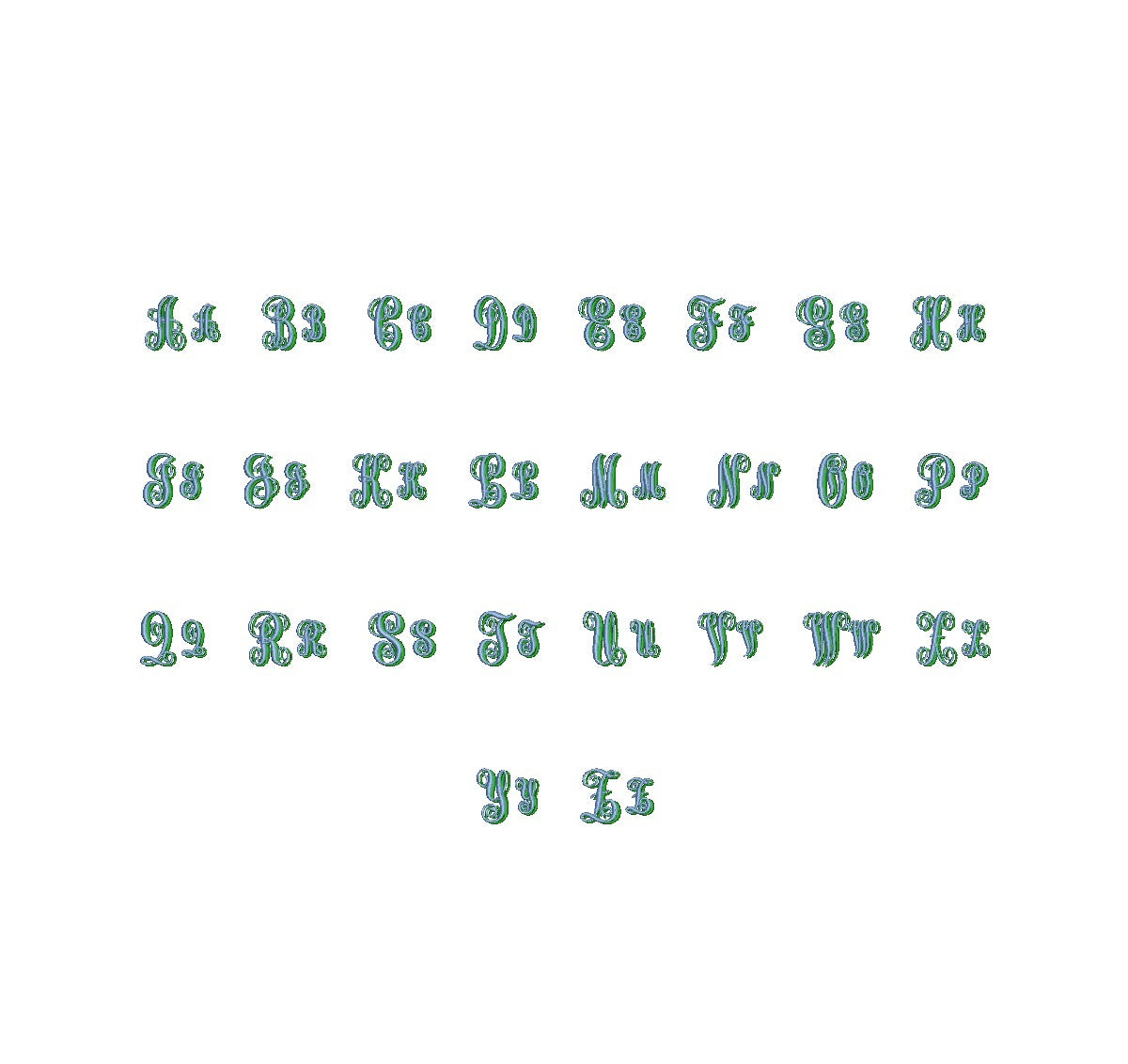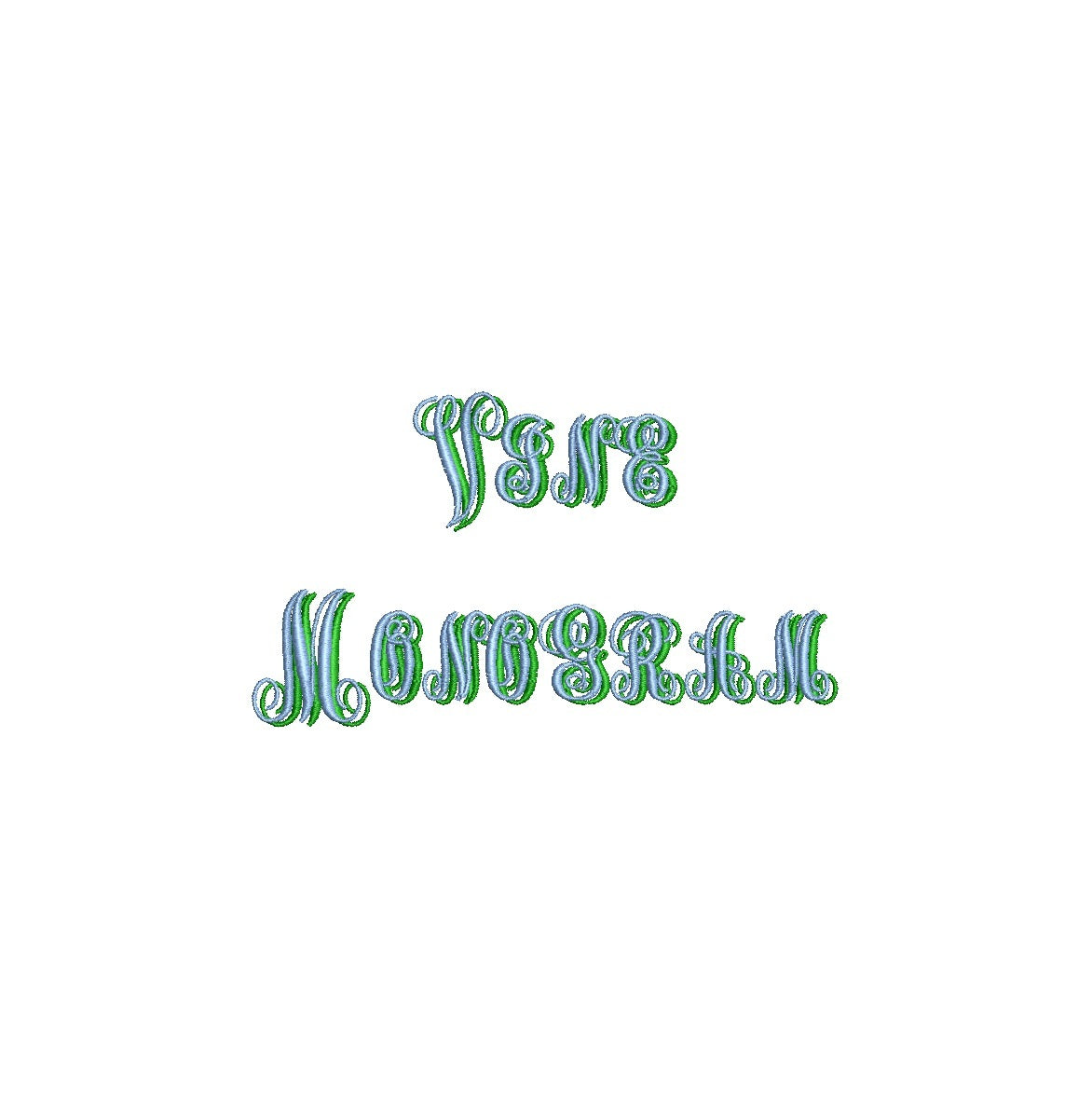
Vine Monogram Shadow ESA font
Elevate your embroidery with the elegant Vine Monogram Shadow ESA font. Crafted for Wilcom Studio e4.5.6 and Hatch 3 versions and newer, this font seamlessly merges style and compatibility. Create personalized monograms with its intricate shadow effect, adding depth and sophistication to your lettering. Perfect for various applications, from stylish monograms to exquisite text layouts. Unleash your creativity as Vine Monogram Shadow ESA font enhances your embroidery. Elevate your designs and make a lasting impression. Choose this font to infuse your creations with personalized charm, redefining your embroidery artistry with a touch of elegance.